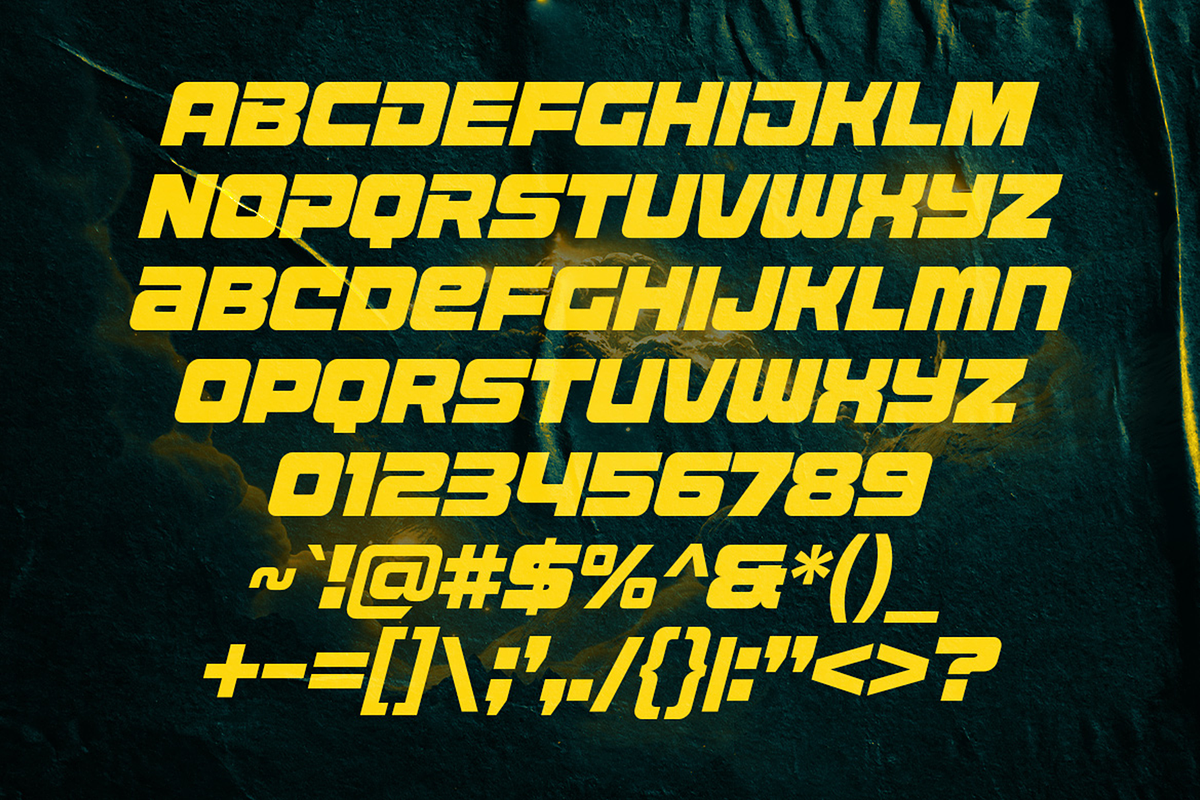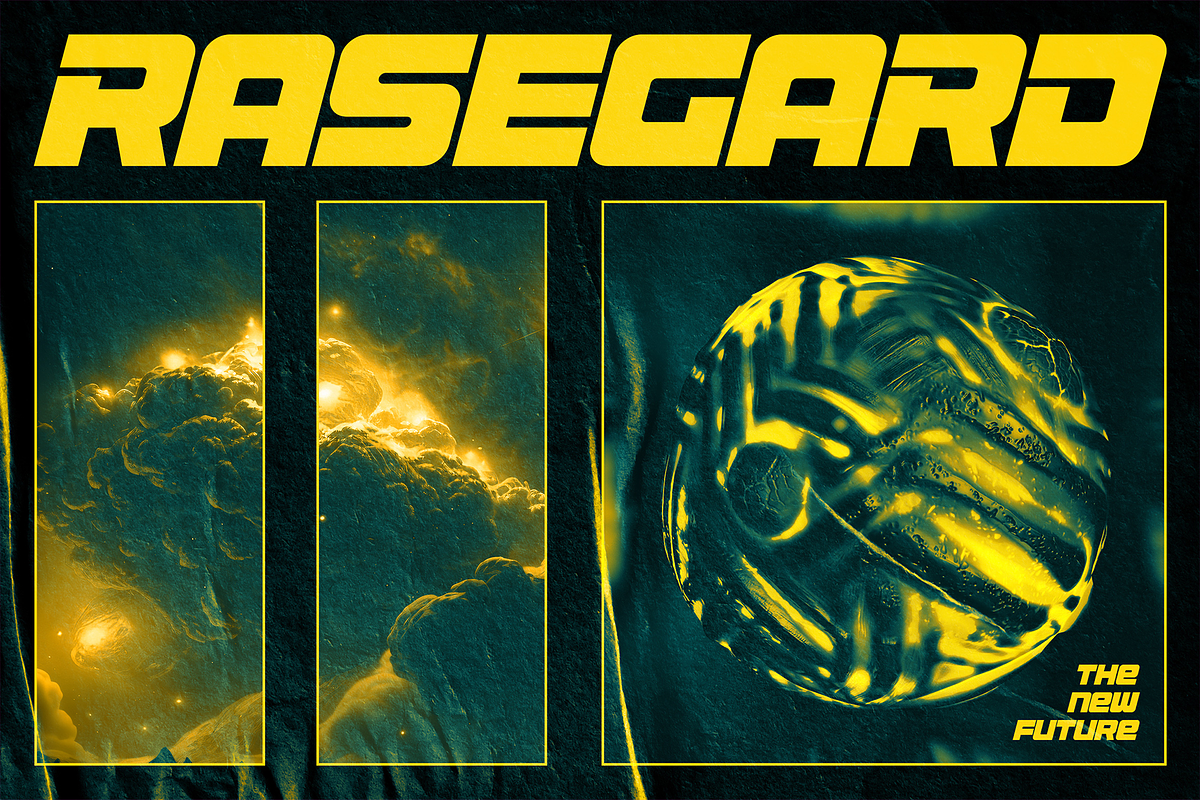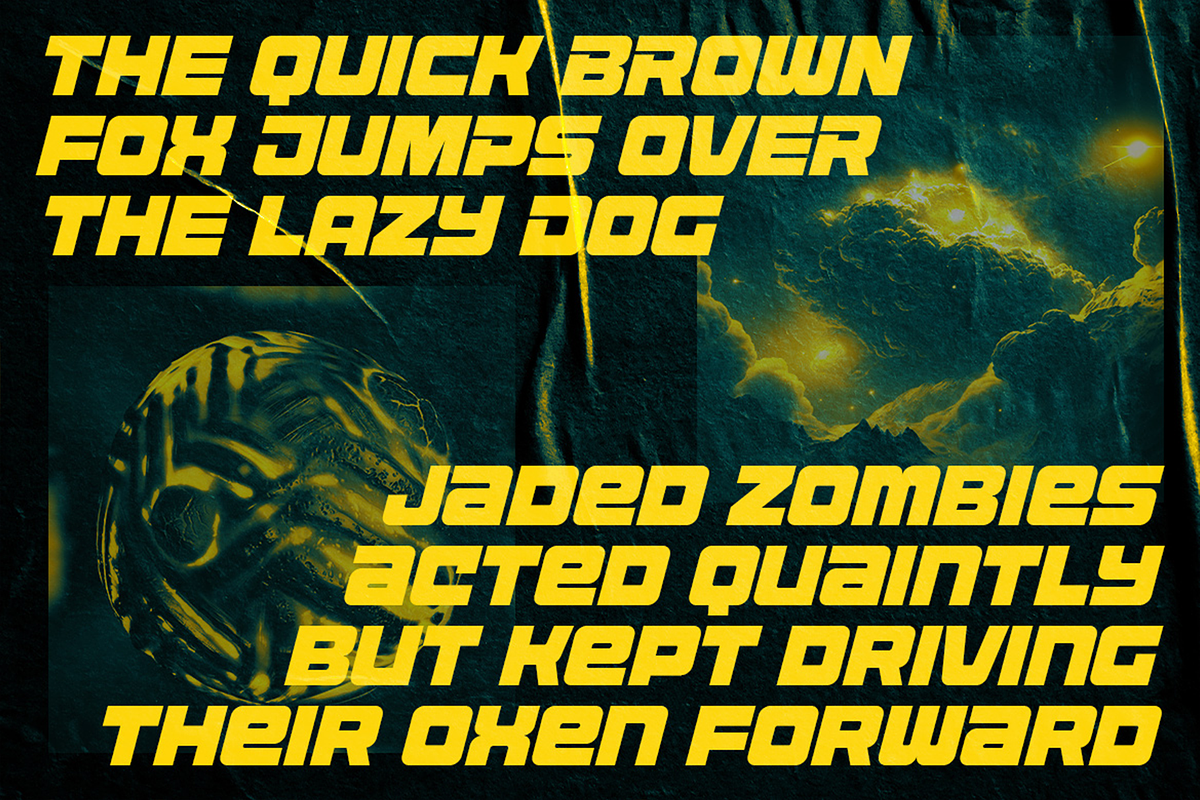
Rasegard - Futuristic Bold Fonts
Rasegard is a meticulously crafted font with cutting-edge inspiration to bring you a font experience like never before. Its sleek and dynamic letterforms will transport your designs to a realm of futuristic brilliance, captivating your audience's imagination and leaving a lasting impression.
Perfectly fit for futuristic design concept, game, esport logo, streamer overlay, poster design, futuristic logo, and many more.